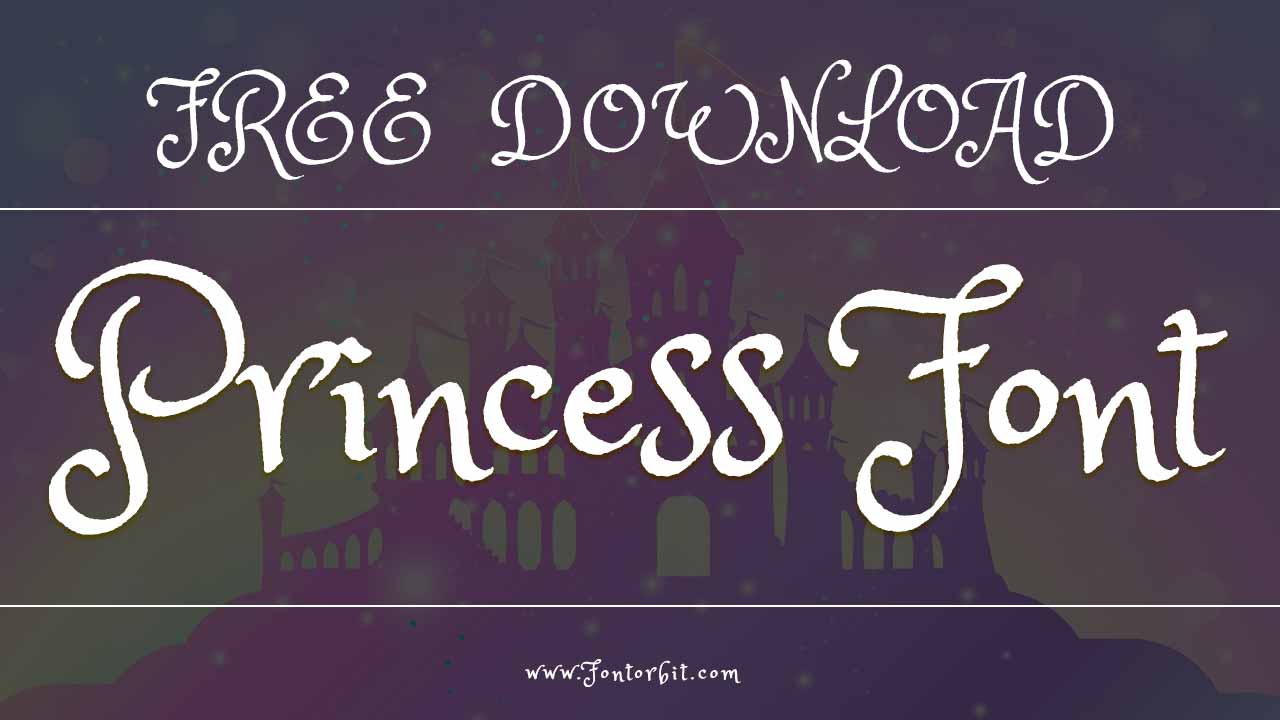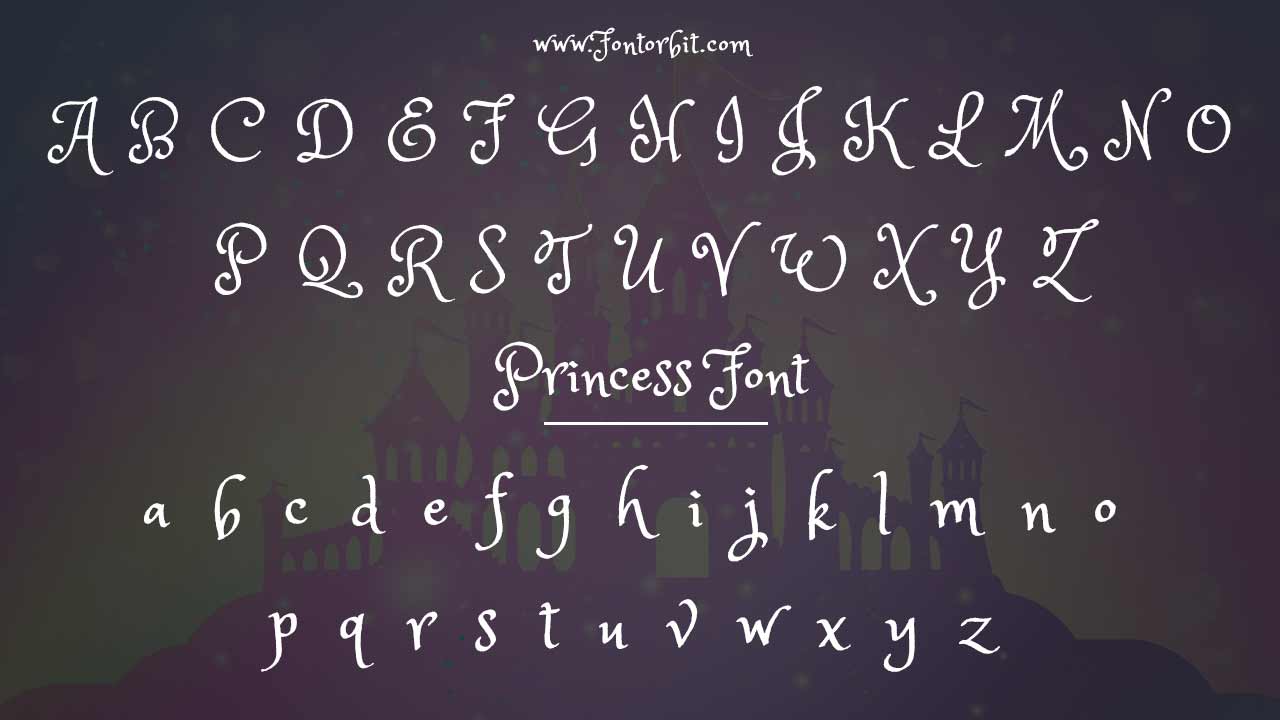
The Princess Font, designed by Twinletter, is a sophisticated and elegant font style ideal for wedding invitations, luxury branding, and stylish digital content. This text style blends classic grace with a modern touch, making it a favorite for those who love royalty-inspired typography. Whether you need a great font for your Instagram bio, a fancy text style for invitations, or an elegant font for a website, the Princess font family provides various stunning options.
Why Choose Princess Fonts?
Princess fonts bring a magical and regal feel to any project. They combine stylish fonts with timeless elegance, making them perfect for personal and professional designs. Here’s why they stand out:
- Luxury Appeal: Ideal for wedding invitations, high-end branding, and sophisticated stationery.
- Graceful Lettering: Soft curves and fluid strokes enhance the font’s charm.
- Versatile Styles: Available in different forms, from elegant scripts to bold calligraphy.
- Perfect for Titles & Logos: Enhances brand identity with a refined touch.
- Handwriting Effect: Mimics beautiful calligraphy for an authentic look.
Popular Princess Font Families
Below are some of the best font families in the Princess category:
- The Princess Font – Elegant, flowing script for wedding stationery and luxury branding.
- Optimus Princeps – Classical Roman-inspired font, great for historical themes.
- Jellyka Western Princess – A whimsical handwritten font, perfect for fairy-tale designs.
- Diana the Princess – A charming calligraphy font for invitations and stylish logos.
- Princesse Muffin – A playful yet elegant font ideal for personal projects.
Where To Use Princess Fonts
Princess fonts fit a variety of creative projects:
- Wedding Invitations – Adds a romantic and graceful touch.
- Luxury Branding – Perfect for high-end logos and packaging.
- Storybook Covers – Enhances fantasy and fairy tale themes.
- Social Media & Instagram Bios – Elevates personal branding.
- Website & Blog Titles – Creates a sophisticated online presence.
Comparison Between Popular Princess Fonts
| Font Name | Style | Best Use Case |
| The Princess Font | Script, Elegant | Wedding invitations |
| Optimus Princeps | Roman, Classic | Historical branding |
| Jellyka Western Princess | Handwritten, Whimsical | Fairy-tale themes |
4. What’s The Best Princess Font For A Wedding Invitation?
The Princess Font and Jellyka Western Princess are perfect choices.